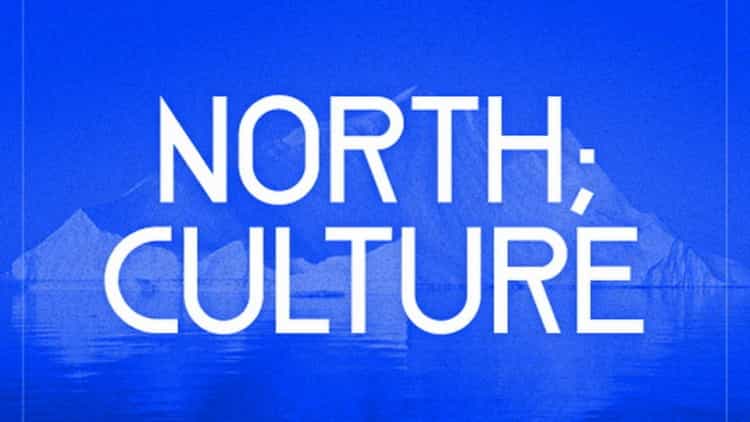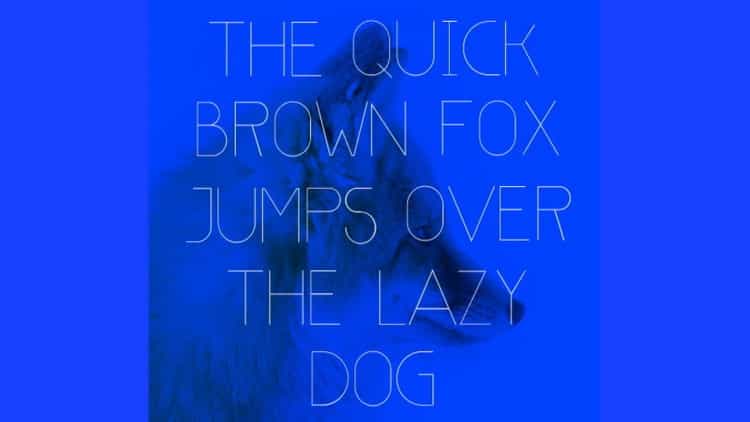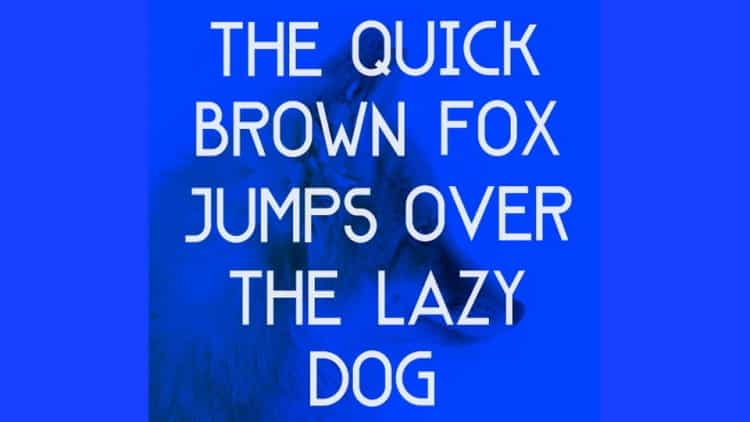
North Culture Font is an elegant Sans-Serif typeface designed by Felipe Elioenay that can be customized for any purpose, making it suitable for posters, display usage and headlines or small text blocks.